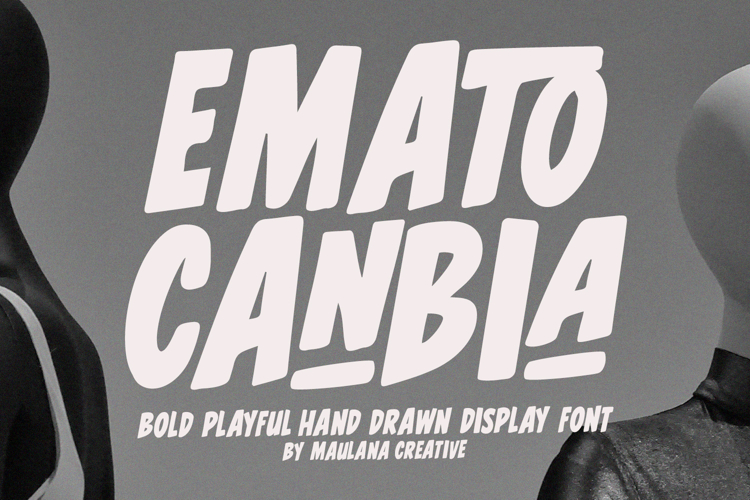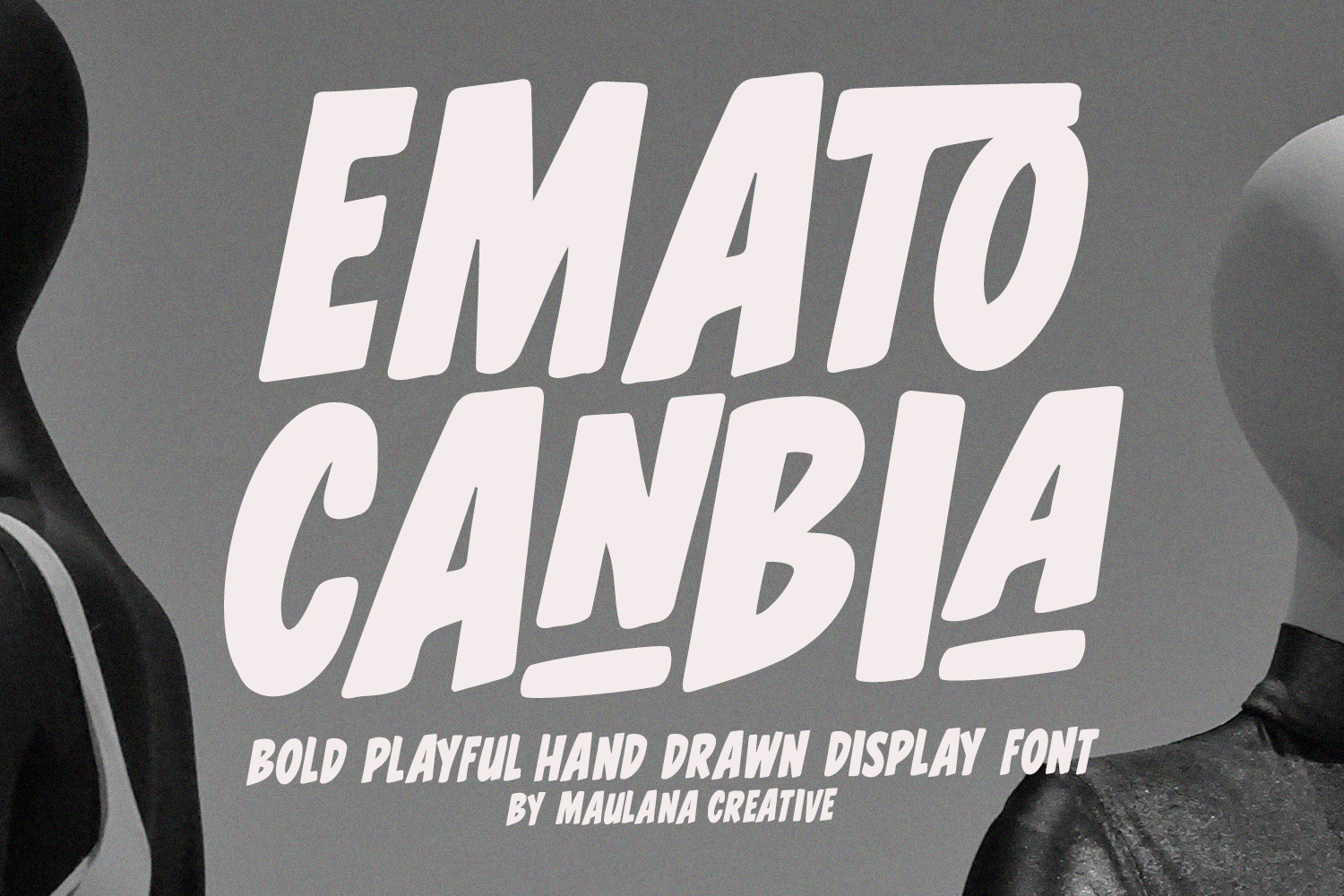
Emato Canbia Bold Playful Hand Drawn Display Font
Elevate your creative projects with Emato Canbia, a bold and expressive hand-drawn display font designed to bring character and energy to every layout. Created by Maulana Creative, this font features thick, organic strokes and a slightly slanted, quirky rhythm that instantly grabs attention.
Emato Canbia is perfect for designers looking for a "human touch" that balances modern aesthetics with a casual, funky vibe. Whether you are working on high-impact headlines, streetwear branding, or trendy social media graphics, this font provides a unique visual identity that stands out from the crowd. Best used for Branding and Logos, Social Media and many more.